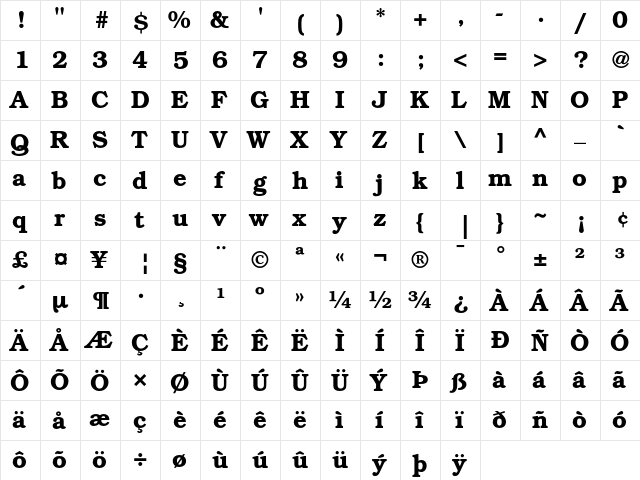
ITC Bookman Demi Font Preview
ITC Bookman Demi
Design Context for ITC Bookman Typeface
ITC Bookman takes a measured approach to typography — its balanced proportions and neutral character make it a reliable workhorse for both digital and print work.